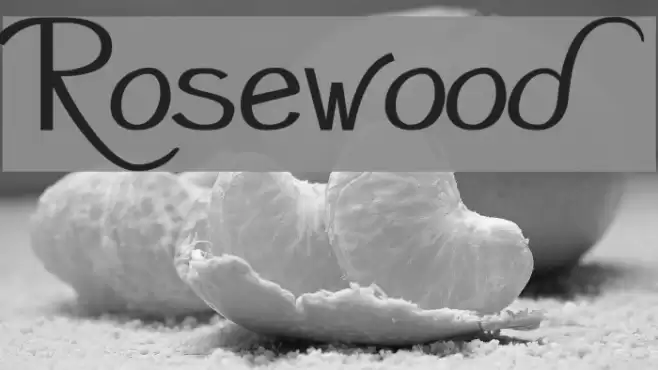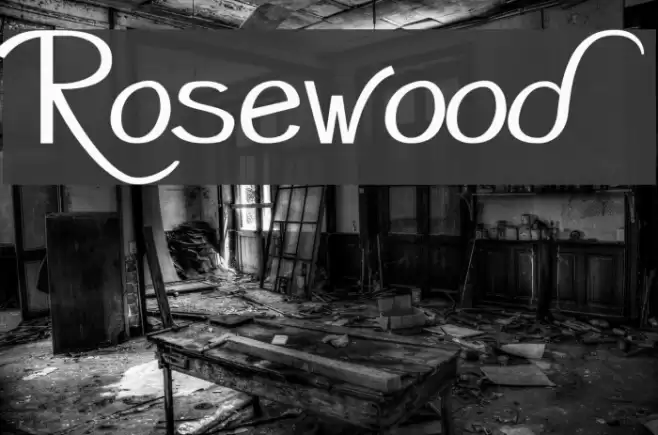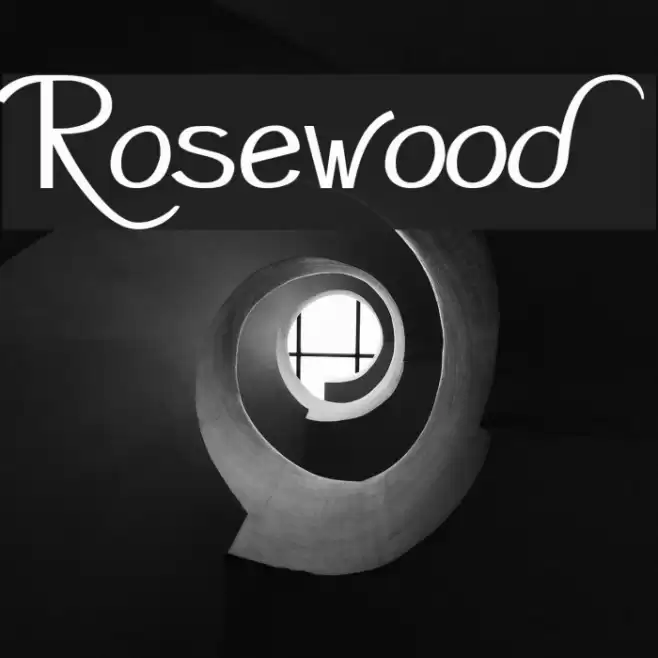
Rosewood Font
Rosewood Description
This font features a unique blend of elegance and playfulness, characterized by its decorative and flowing letterforms. The uppercase letters exhibit a whimsical flair with intricate curves and loops, while the lowercase letters maintain a more straightforward yet stylish appearance. The numerals are bold and slightly slanted, adding to the font's dynamic nature. Special characters are crafted with the same attention to detail, ensuring consistency throughout. This font's overall design is both eye-catching and versatile, making it suitable for a variety of creative applications.
A decorative and playful font with elegant curves and bold numerals from Uncategorized fonts.
- Proposed Projects: Ideal for invitations, branding, packaging, and artistic projects that require a touch of elegance and creativity.
- Use Case: Headlines, Logos, Artistic projects